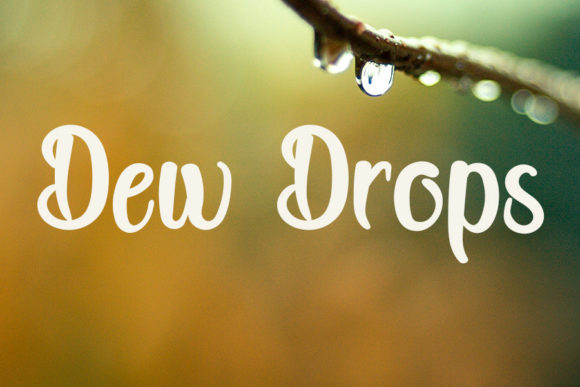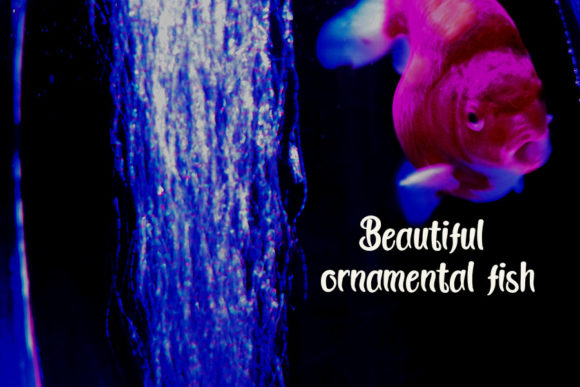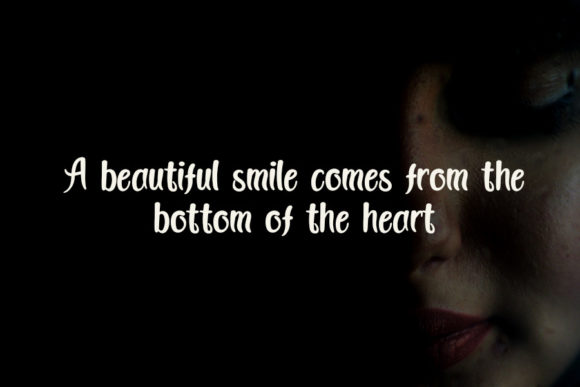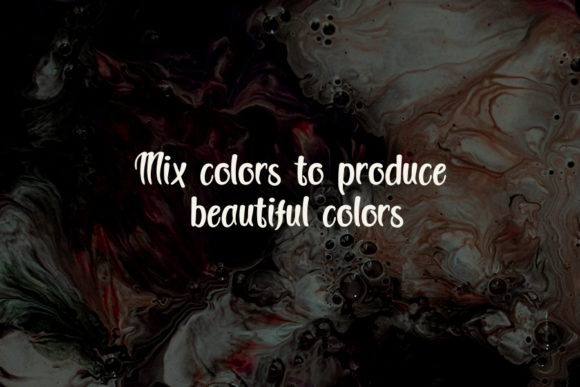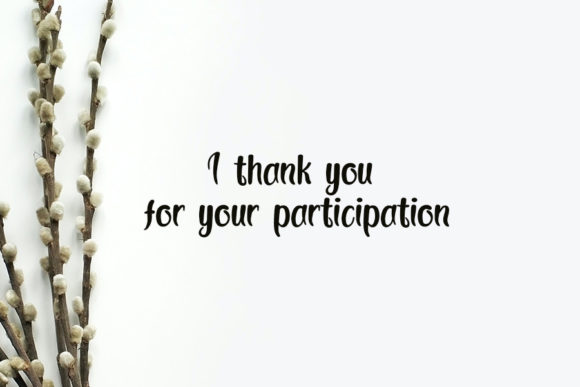
An Honest Review of Cute Bubbles Font
What I Love About Cute Bubbles ✨
- ✅ Classy Calligraphic Influences: Cute Bubbles strikes the perfect balance between modern and traditional, making it versatile for a wide range of projects.
- ✅ Contemporary and Fresh Feel: The font’s unique blend of casual handwritten elements and elegant calligraphy makes it stand out in any design.
- ✅ Ease of Use: Whether you’re a seasoned designer or a creative hobbyist, Cute Bubbles is incredibly easy to work with, even for those who are new to using OpenType features and glyphs.
- ✅ Wide Range of Applications: From crafting and scrapbooking to branding and digital marketing, Cute Bubbles can add a touch of whimsy and sophistication to any project.
While Cute Bubbles is an amazing font, there are a few minor quirks to be aware of:
- 🤔 Limited Use on Small Sizes: Due to its intricate design, Cute Bubbles may not be the best choice for very small font sizes, as some details might get lost.
- 🤔 Requires Some Exploration to Master: With a wide range of OpenType features and glyphs, it might take some time to get familiar with all the possibilities Cute Bubbles offers.
The Backstory of Cute Bubbles Font
Cute Bubbles was designed with the intention of creating a font that embodies both playfulness and elegance. The designer aimed to craft a font that would be easy to read, highly versatile, and capable of adding a whimsical touch to various projects. Inspired by the beauty of handwritten calligraphy and the freshness of modern typography, Cute Bubbles was born.
Q: Does Cute Bubbles support OpenType features?
A: Yes, Cute Bubbles comes with a range of OpenType features, including stylistic alternates and glyphs, which can be accessed through compatible software like Adobe Photoshop or Illustrator.
Q: Can I use Cute Bubbles for crafting and scrapbooking?
A: Definitely! Cute Bubbles is an excellent choice for crafters and scrapbookers looking to add a touch of elegance and whimsy to their projects.